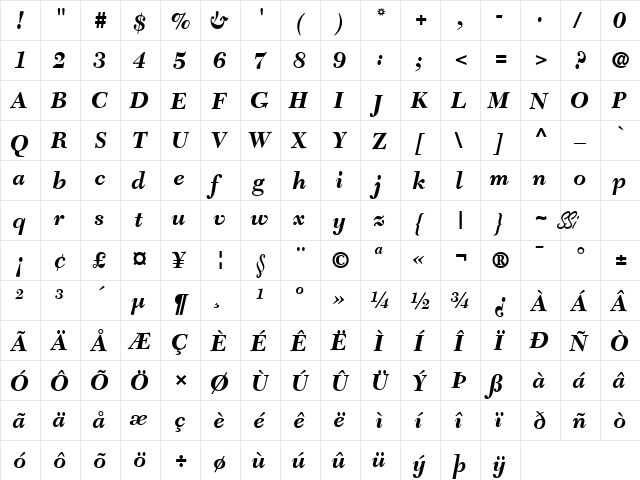
Tycoon Black SSi Bold Italic
Design Context for Tycoon Black SSi Typeface
Tycoon Black SSi is a composed and adaptable typeface that performs quietly and consistently across a wide range of design contexts. The dynamic lean of this cut emphasises speed and emphasis in any layout. The heavy weight commands attention and anchors typographic hierarchies.